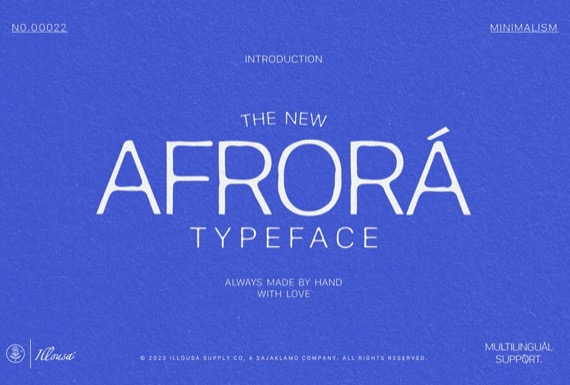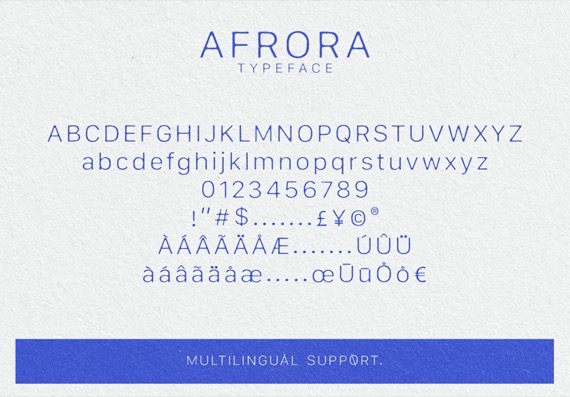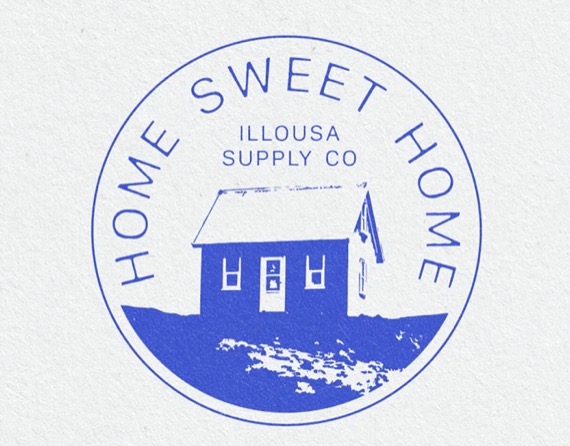
Afrora is a vintage print inspired font that is polly , and is perfect for a variety of uses. Recommend for branding project and website font. Minimalism style. Available for multilingual glyphs.
Afrora Vintage Sans Font